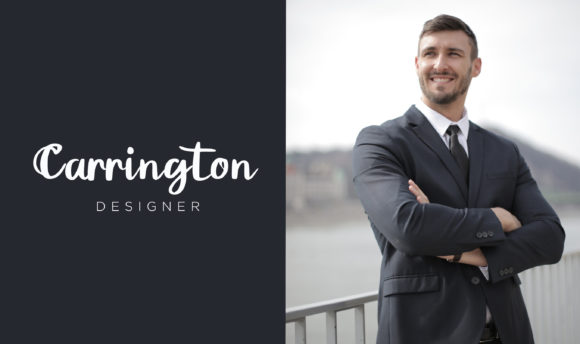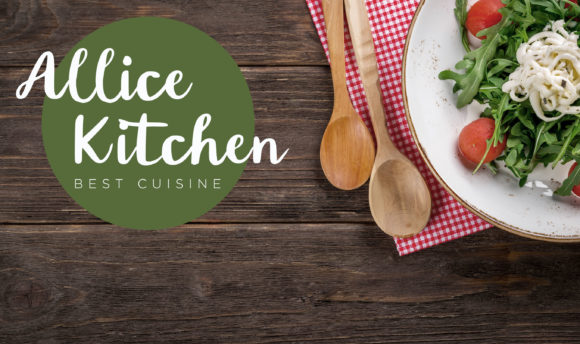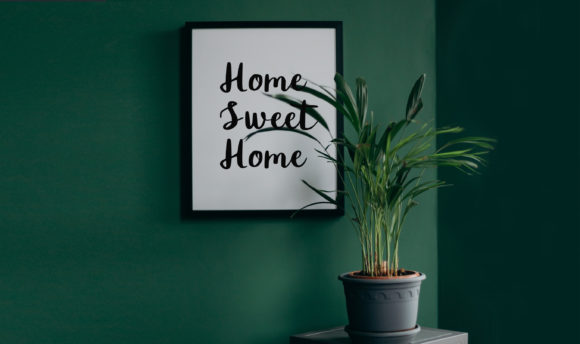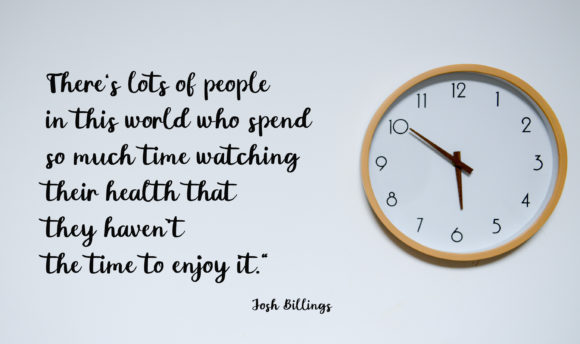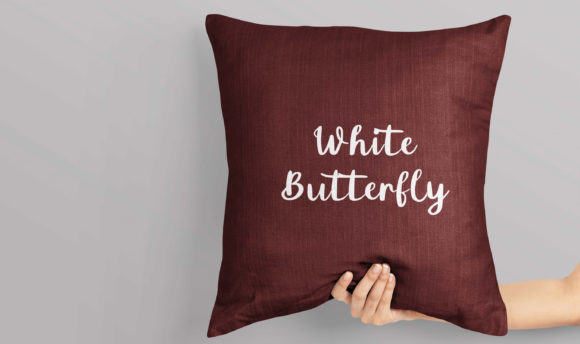
Introducing Blackchat Font: The Perfect Blend of Luxury and Nostalgia
Are you a designer or crafter looking for a unique and captivating font to elevate your creative projects? Look no further than Blackchat Font, a stunning handwritten font that exudes luxury, confidence, and a touch of nostalgia. In this article, we’ll dive into the world of Blackchat Font, exploring its features, benefits, and uses, as well as provide tips on how to make the most of this beautiful font.
The Characteristics of Blackchat Font
Blackchat Font is a lovely handwritten font that boasts a luxurious and natural flow. Its strong, confident, and dynamic appearance makes it perfect for designers and crafters who want to add a touch of sophistication to their work. The font’s unique characteristics include:
- Luxurious feel: Blackchat Font has a high-end, luxurious feel that adds a touch of elegance to any design.
- Natural flow: The font’s natural flow and handwritten style give it a friendly, approachable feel.
- Strong and confident: Blackchat Font reads as strong, confident, and dynamic, making it perfect for headlines, titles, and statements.
- Nostalgic character: The font’s classic, handwritten style adds a touch of nostalgia to any design, making it perfect for vintage-inspired projects.
Uses of Blackchat Font
Blackchat Font is a versatile font that can be used in a variety of creative projects, including:
- Branding and logos: Use Blackchat Font to create a unique and memorable logo that reflects your brand’s personality.
- Headlines and titles: Add a touch of luxury and sophistication to your headlines and titles with Blackchat Font.
- Invitations and greeting cards: Create beautiful, handmade-style invitations and greeting cards with Blackchat Font.
- Packaging and labels: Use Blackchat Font to add a touch of elegance to your packaging and labels.
- Digital and print media: Blackchat Font can be used in a variety of digital and print media, including magazines, brochures, and social media graphics.
Tips for Using Blackchat Font
To get the most out of Blackchat Font, follow these tips:
- Use it sparingly: Blackchat Font is a statement font, so use it sparingly to add emphasis and create visual interest.
- Pair it with contrasting fonts: Pair Blackchat Font with contrasting fonts to create visual interest and add depth to your design.
- Experiment with colors and textures: Experiment with different colors and textures to add an extra layer of depth and interest to your design.
- Pay attention to font size: Make sure to adjust the font size to suit your design, using larger font sizes for headlines and smaller font sizes for body text.
Why Designers and Crafters Love Blackchat Font
Designers and crafters love Blackchat Font for its unique blend of luxury, confidence, and nostalgia. Here are just a few reasons why:
- Unique and eye-catching: Blackchat Font is a one-of-a-kind font that adds a touch of personality to any design.
- Easy to read: Despite its luxurious and elegant appearance, Blackchat Font is easy to read, making it perfect for body text and headlines.
- Versatile: Blackchat Font can be used in a variety of creative projects, from branding and logos to invitations and packaging.
- High-quality: Blackchat Font is a high-quality font that is designed to deliver exceptional results, whether you’re working on a digital or print project.
In conclusion, Blackchat Font is a stunning handwritten font that offers a unique blend of luxury, confidence, and nostalgia. Its strong, confident, and dynamic appearance makes it perfect for designers and crafters who want to add a touch of sophistication to their creative projects. With its versatility, ease of use, and high-quality design, Blackchat Font is a must-have font for any designer or crafter looking to elevate their work.